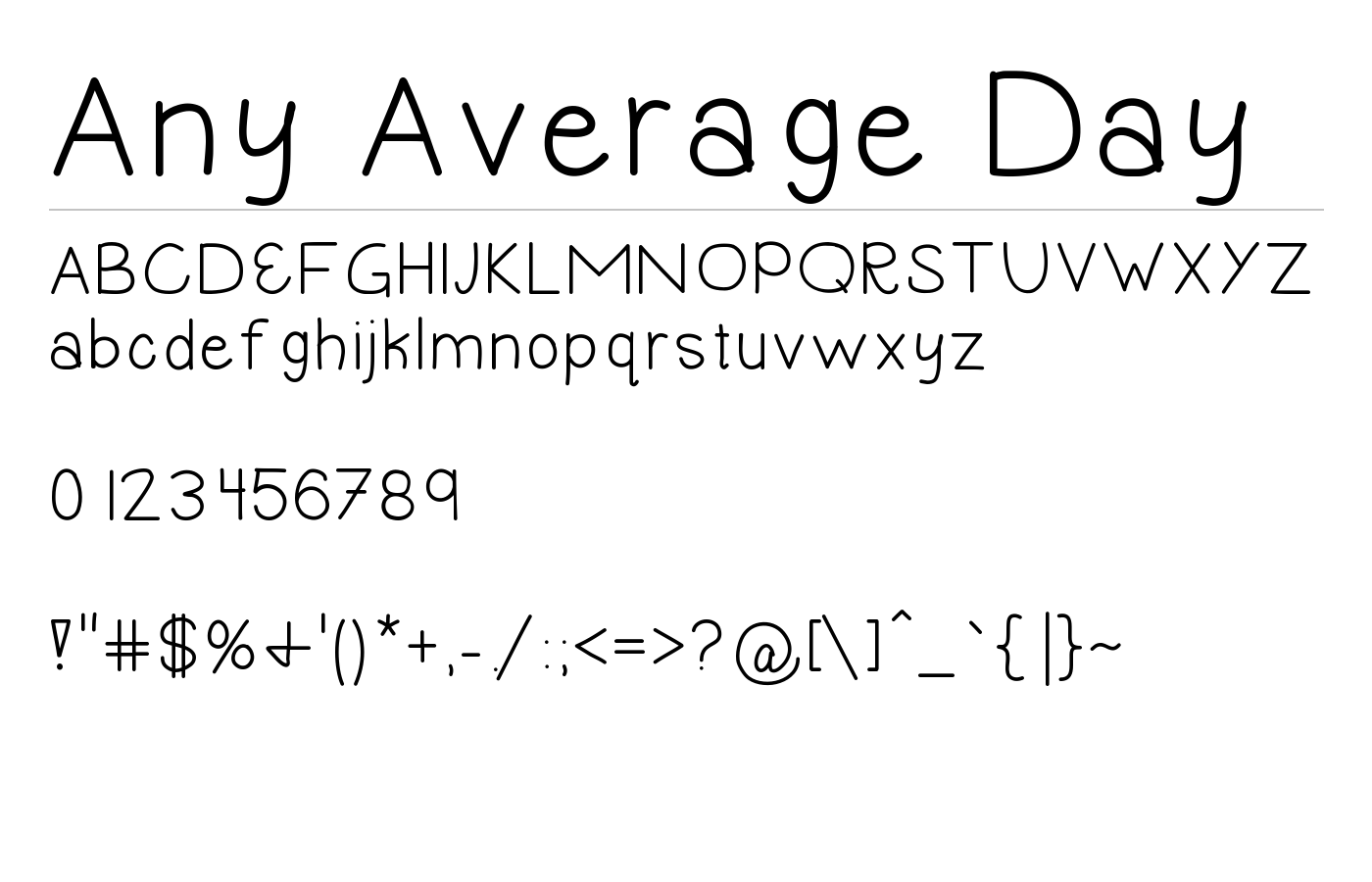
Any Average Day is a playful, hand-drawn sans serif font with a light weight and an airy, casual feel. Its irregular, rounded letterforms and subtle quirky details give it a friendly and approachable personality, making it ideal for informal designs, creative projects, children's materials, and branding that aims to feel personal and approachable. This font works best in headlines, logos, and packaging where a relaxed and unique style is desired.
Any Average Day Font
About Any Average Day Font